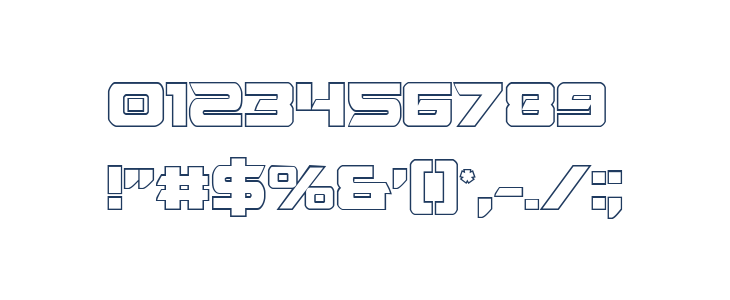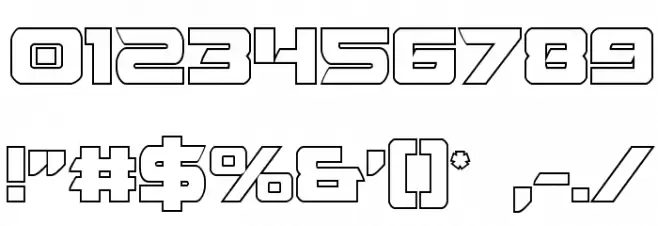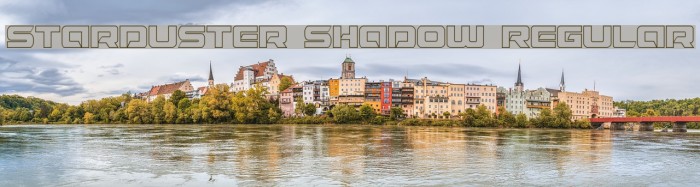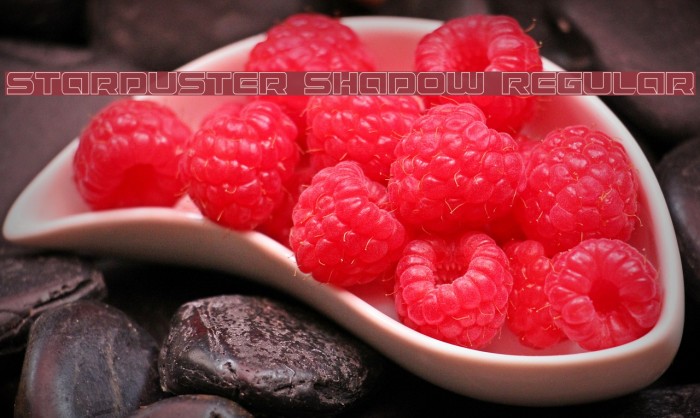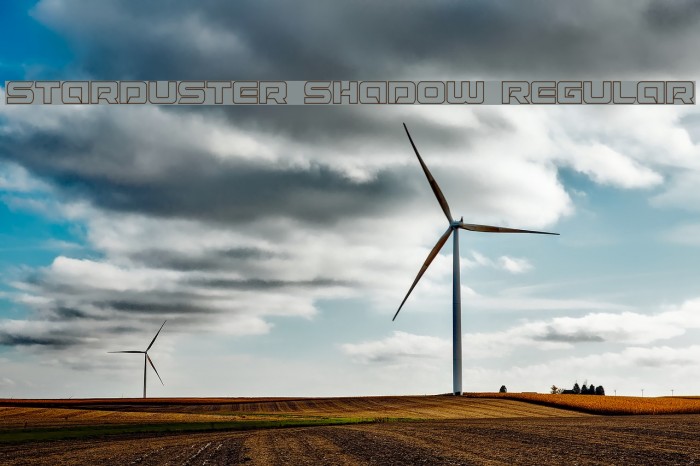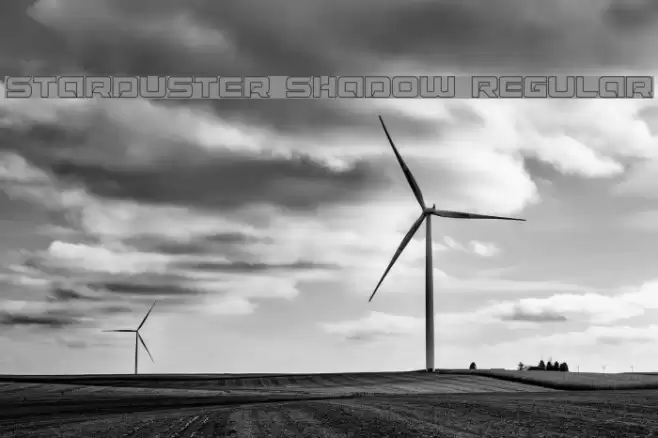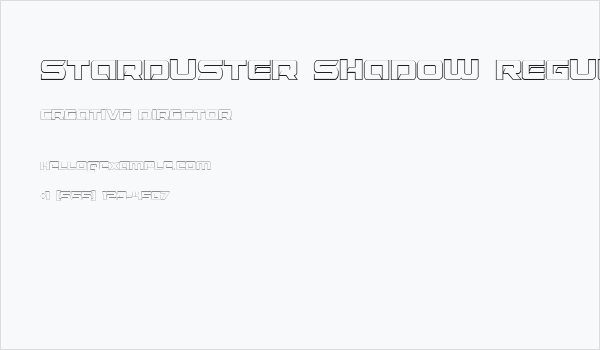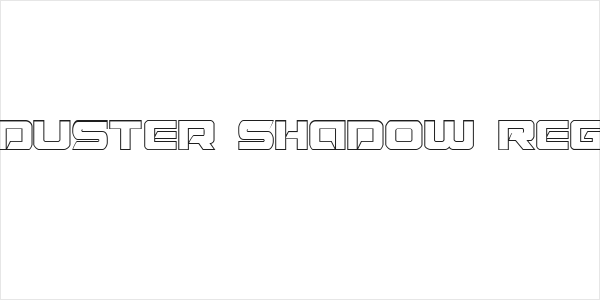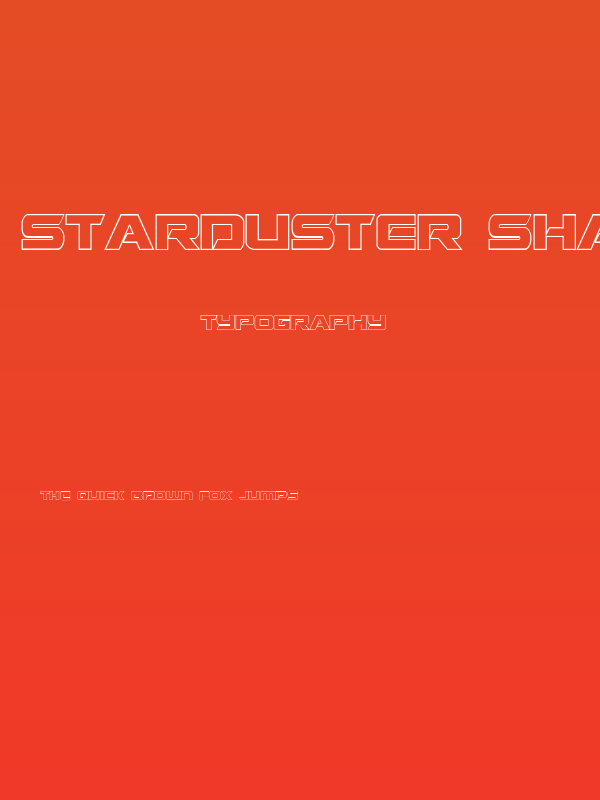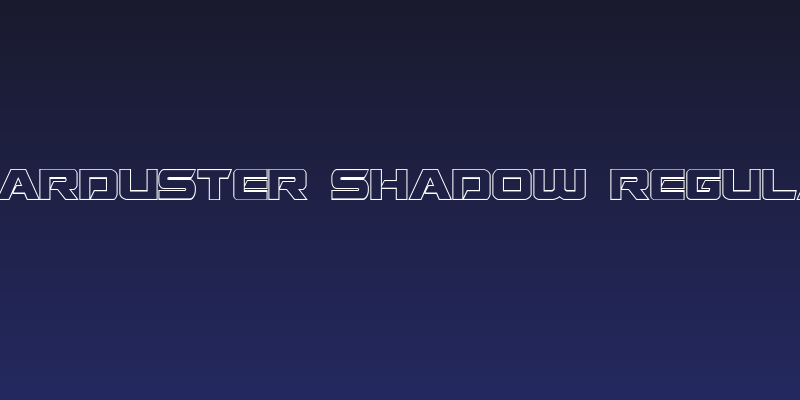
Starduster Shadow Regular Font
Starduster Shadow Regular Description
This font features a bold, geometric design with a futuristic and angular aesthetic. The characters are outlined, creating a shadow effect that adds depth and dimension. The uppercase and lowercase letters maintain a consistent style, with sharp edges and clean lines. The numerals and special characters follow the same design principles, ensuring uniformity across all elements. This font is highly stylized, making it ideal for projects that require a modern and eye-catching typeface.
| Proposed Projects | Ideal for sci-fi themed designs, video game titles, posters, and branding that requires a modern, standout look. |